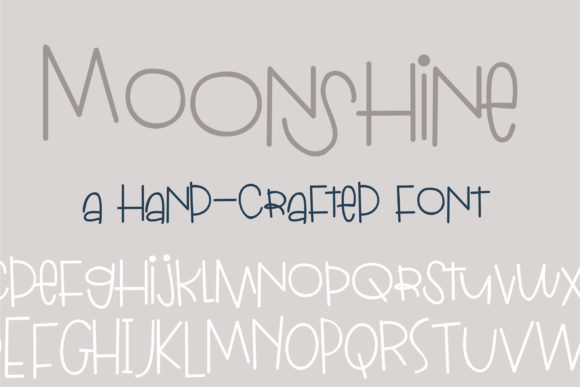
Welcome to the world of ZP Moonshine Font, a captivating and irresistibly charming handwritten font that exudes a captivating aura of whimsy and playfulness. Step into a realm where your creative expressions dance with a unique rhythm, flowing seamlessly from your fingertips onto the digital canvas. ZP Moonshine Font, a true masterpiece from the creative minds at Illustration Ink, is not just a font; it's an experience that transforms your designs into captivating masterpieces.
With its whimsical curves and playful strokes, ZP Moonshine Font captures the essence of handwritten artistry, bringing a touch of warmth and authenticity to every project. Its carefully crafted ligatures add an element of delightful surprise, seamlessly connecting letters and creating a visual symphony that dances across the page. Unleash your imagination and let your words take on a life of their own, as ZP Moonshine Font weaves its magic, transforming ordinary text into enchanting works of art.
Immerse yourself in the world of print books, where ZP Moonshine Font reigns supreme. Its bold and enchanting strokes command attention, drawing readers into the captivating narratives that unfold within the pages. Each letter becomes a character, each word a chapter in a story that captivates the imagination and leaves readers spellbound. ZP Moonshine Font is not just a font; it's a portal to a world where words come alive and stories ignite the soul.
Express yourself with flair and creativity, whether crafting heartfelt letters, designing captivating posters, or creating eye-catching social media graphics. ZP Moonshine Font complements your vision perfectly, adding a touch of whimsy and enchantment to every project. Let your designs blossom into works of art, captivating your audience and leaving them in awe of your creative brilliance.
For those seeking a font that speaks to the heart and captures the essence of handwritten artistry, ZP Moonshine Font is the perfect choice. Its bold strokes and playful ligatures create a visual symphony that dances across the page, transforming ordinary text into extraordinary expressions. Discover the magic of ZP Moonshine Font today and elevate your creative projects to new heights.